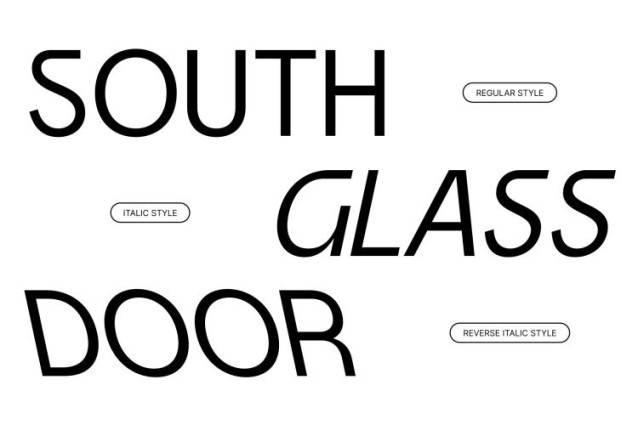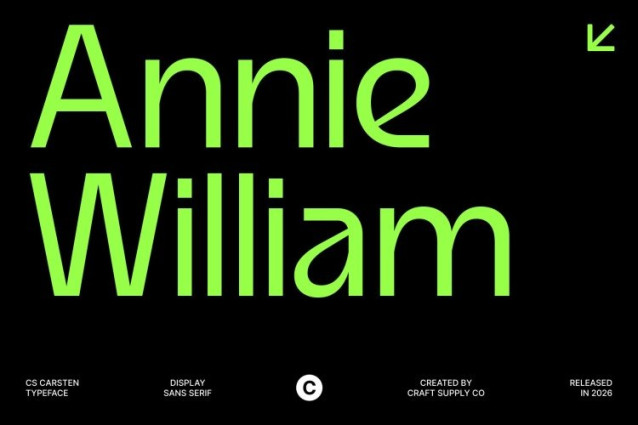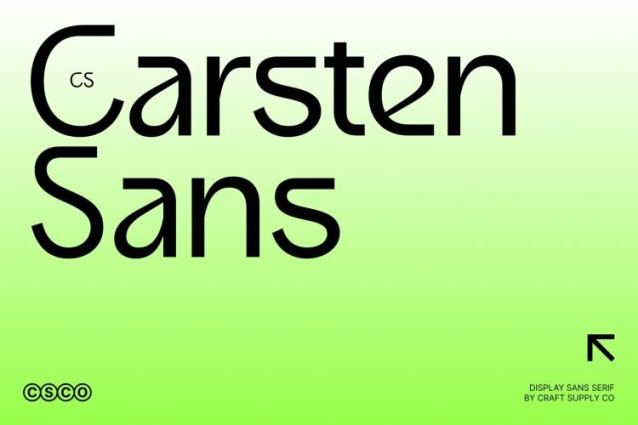
CS Carsten Font
CS Carsten Font This is a sans serif font featuring a hybrid design that blends modern, experimental, and minimalist elements into a cohesive and versatile typeface. Its letterforms shift subtly between clean tradition and contemporary expression, creating a visual language that feels both professional and relaxed.
Modern Details with Minimalist Control
The strength of this font lies in its carefully considered details. Clean strokes and balanced proportions form a minimalist foundation, while select experimental touches add freshness and individuality. These modern nuances keep the font visually engaging while maintaining clarity and structure, making it suitable for both expressive display use and refined text settings.
Elegant Tradition Meets Contemporary Style
This font successfully bridges traditional elegance and modern design sensibilities. Its calm rhythm and smooth construction evoke trust and professionalism, while its contemporary styling adds relevance and creativity. This dual character allows the font to adapt across a wide range of visual tones, from formal branding to relaxed editorial layouts.
Perfect for Branding, Editorial, and Digital Design
Designed for flexibility, this font is ideal for branding, modern editorial design, websites, and digital interfaces. Its elegant yet fresh appearance makes it especially effective for companies and creatives seeking a distinctive brand identity that feels current and refined.